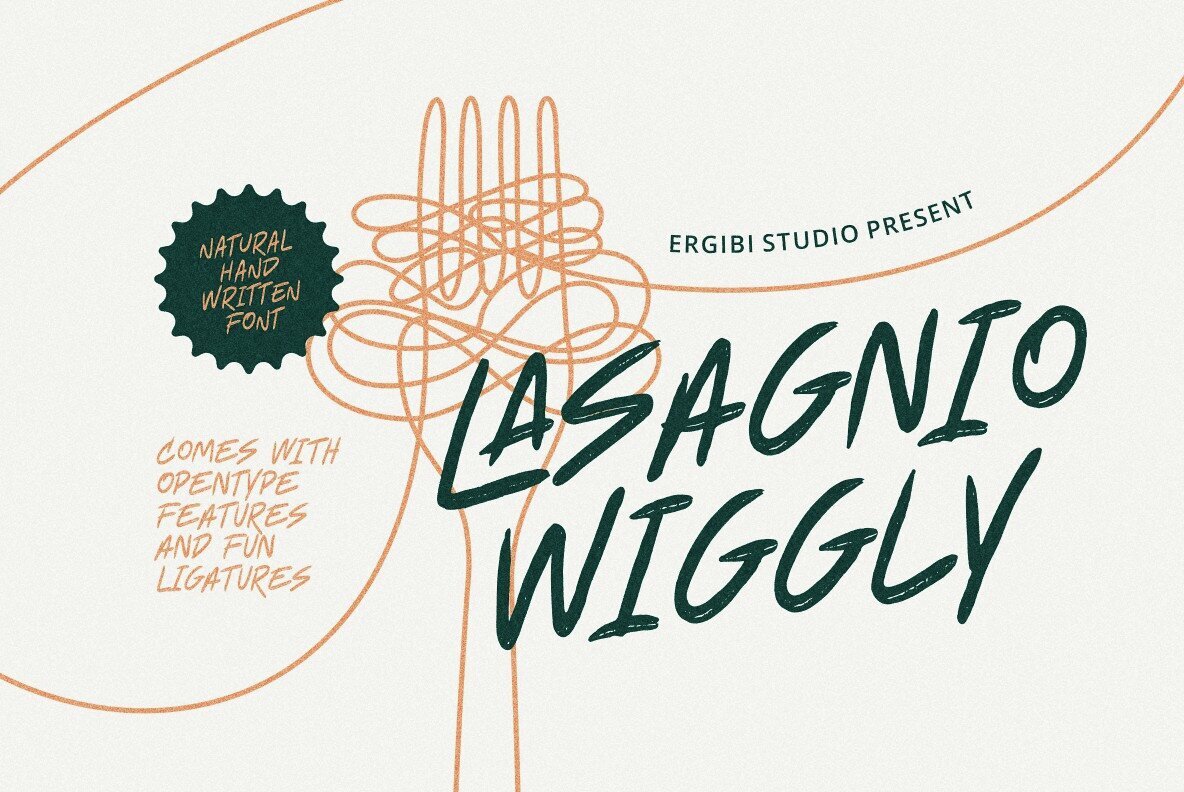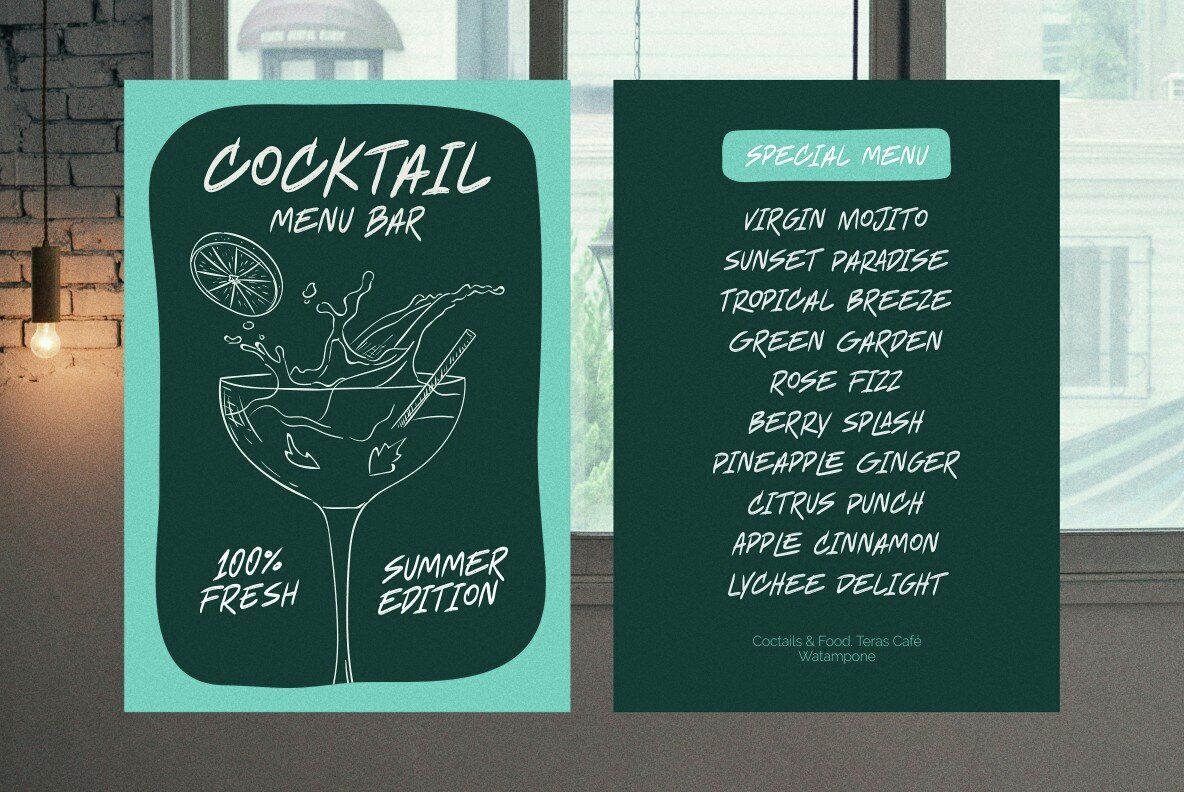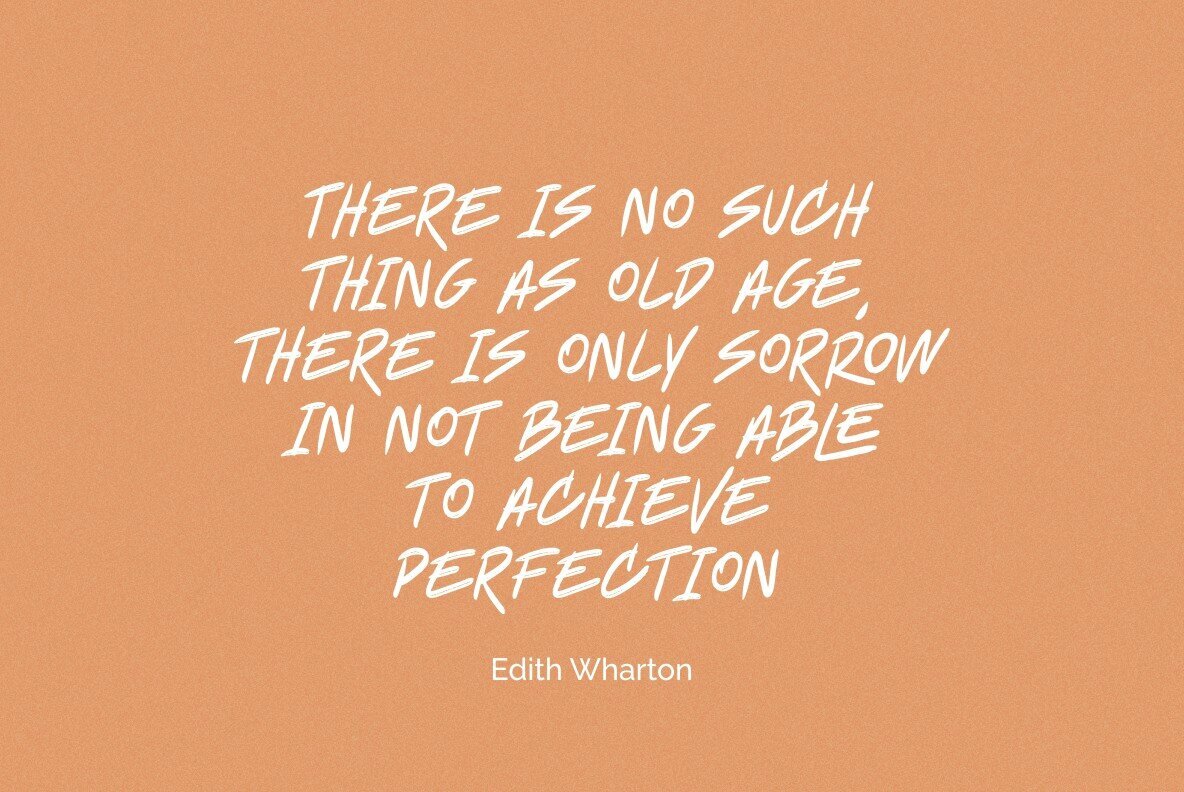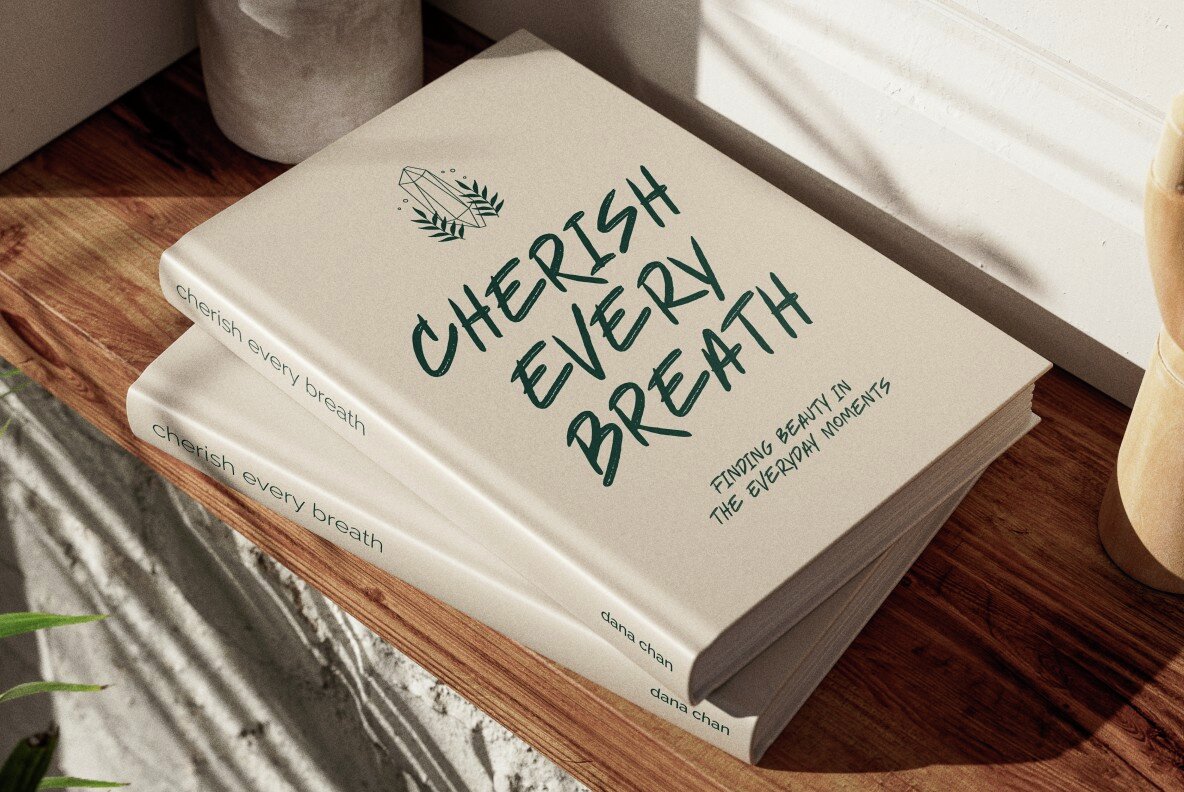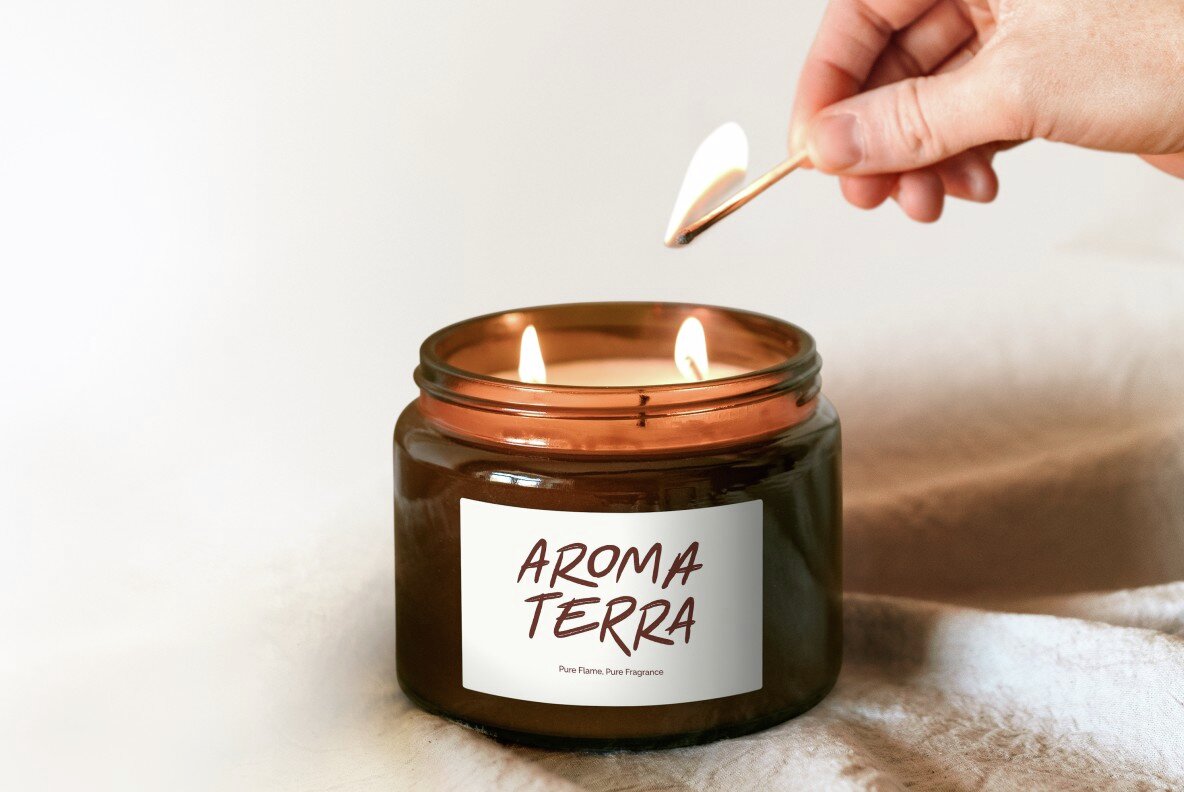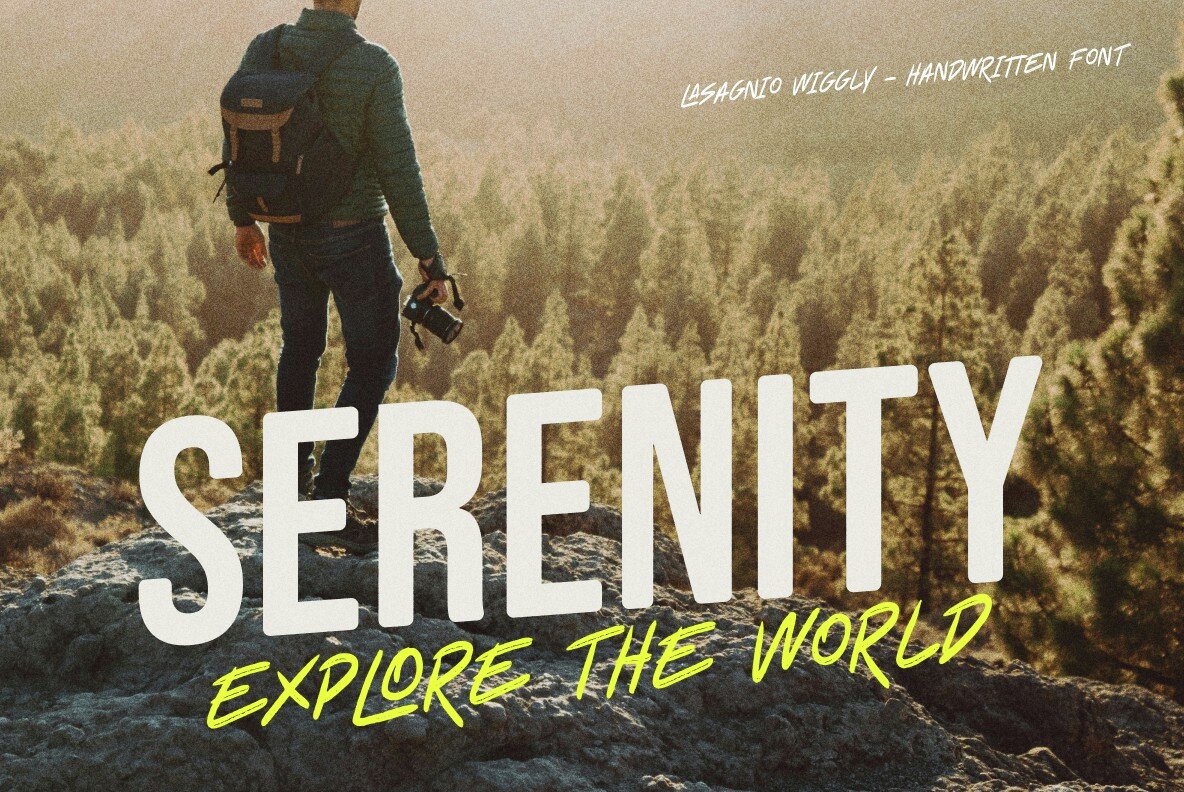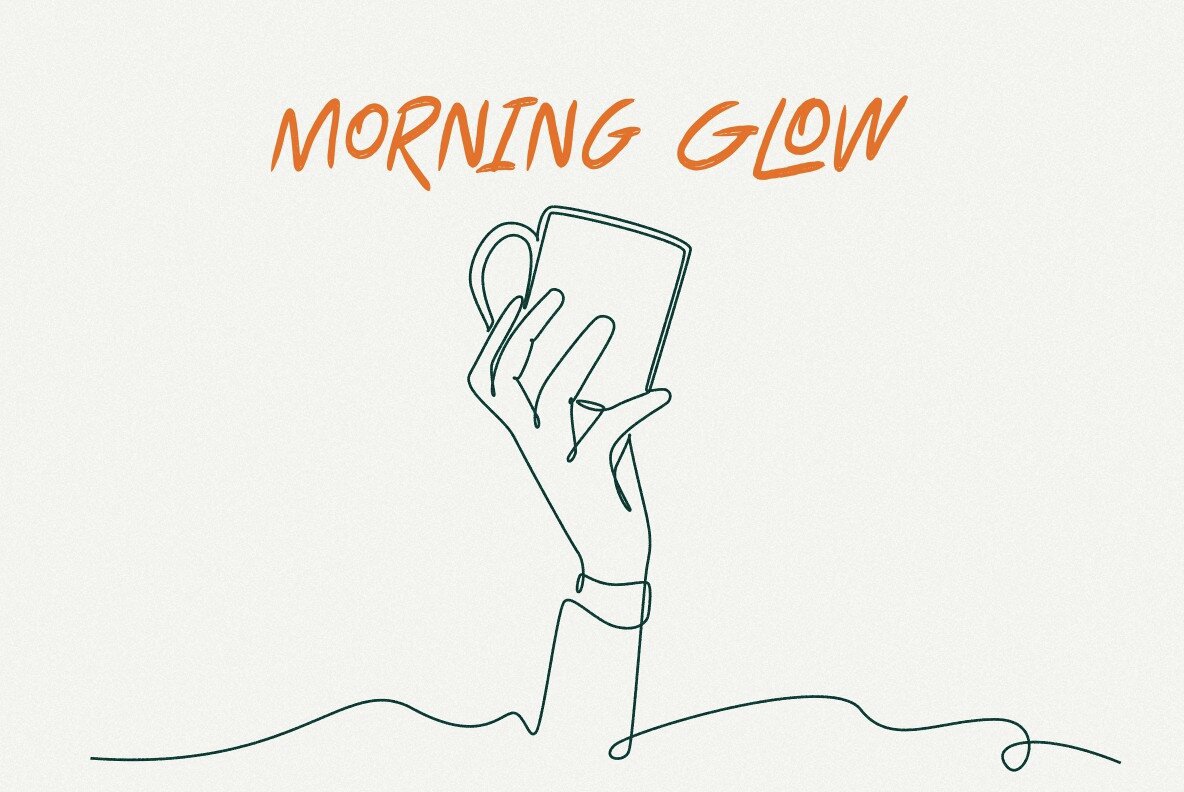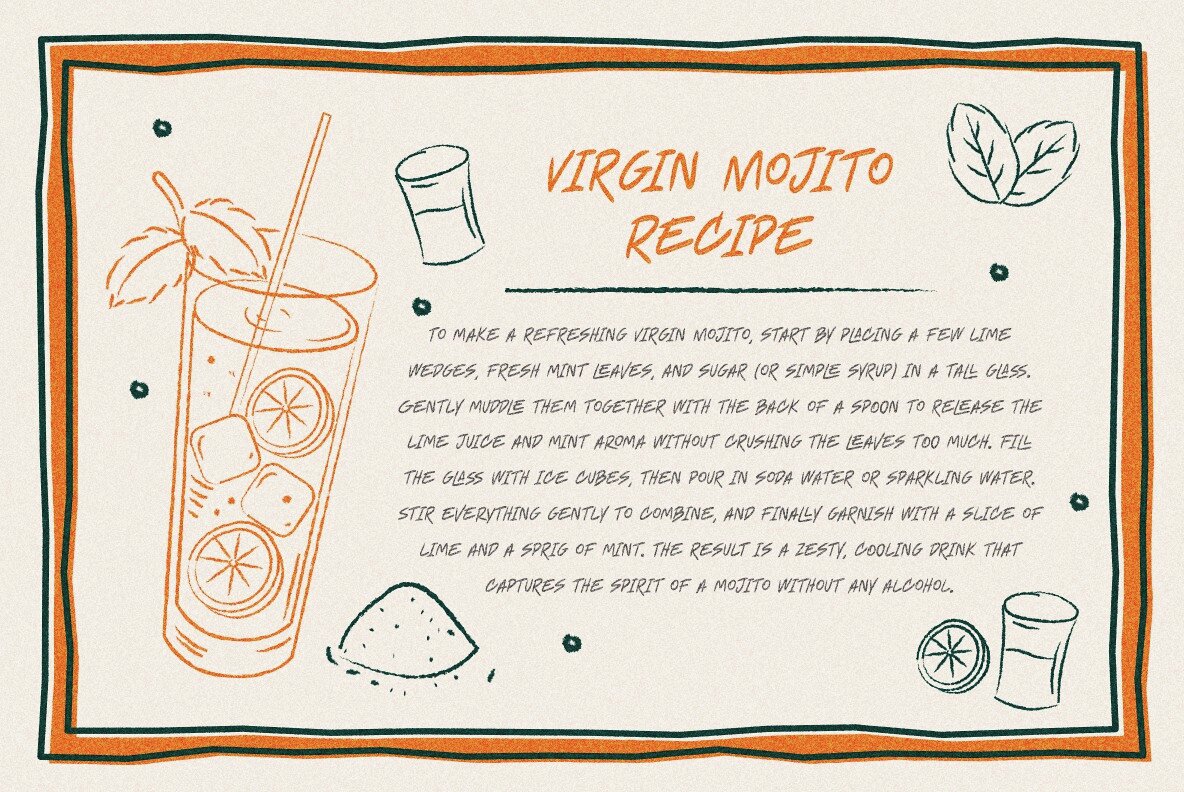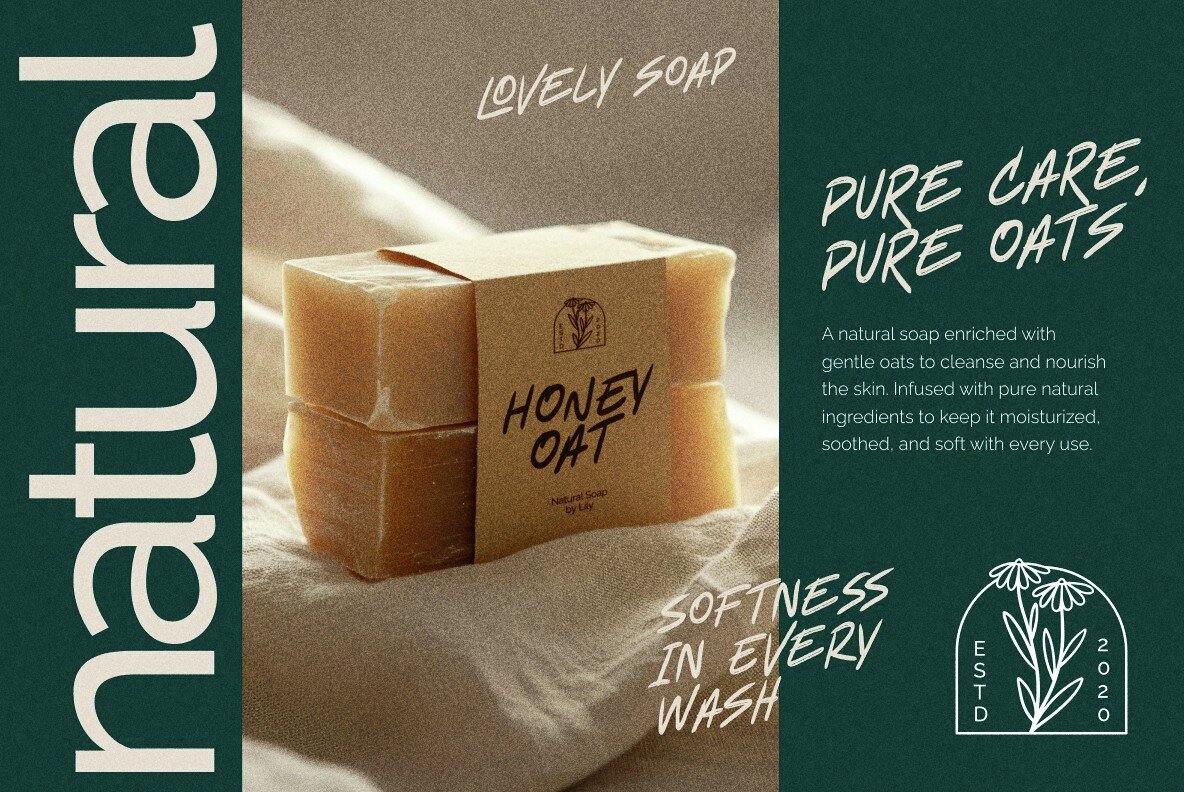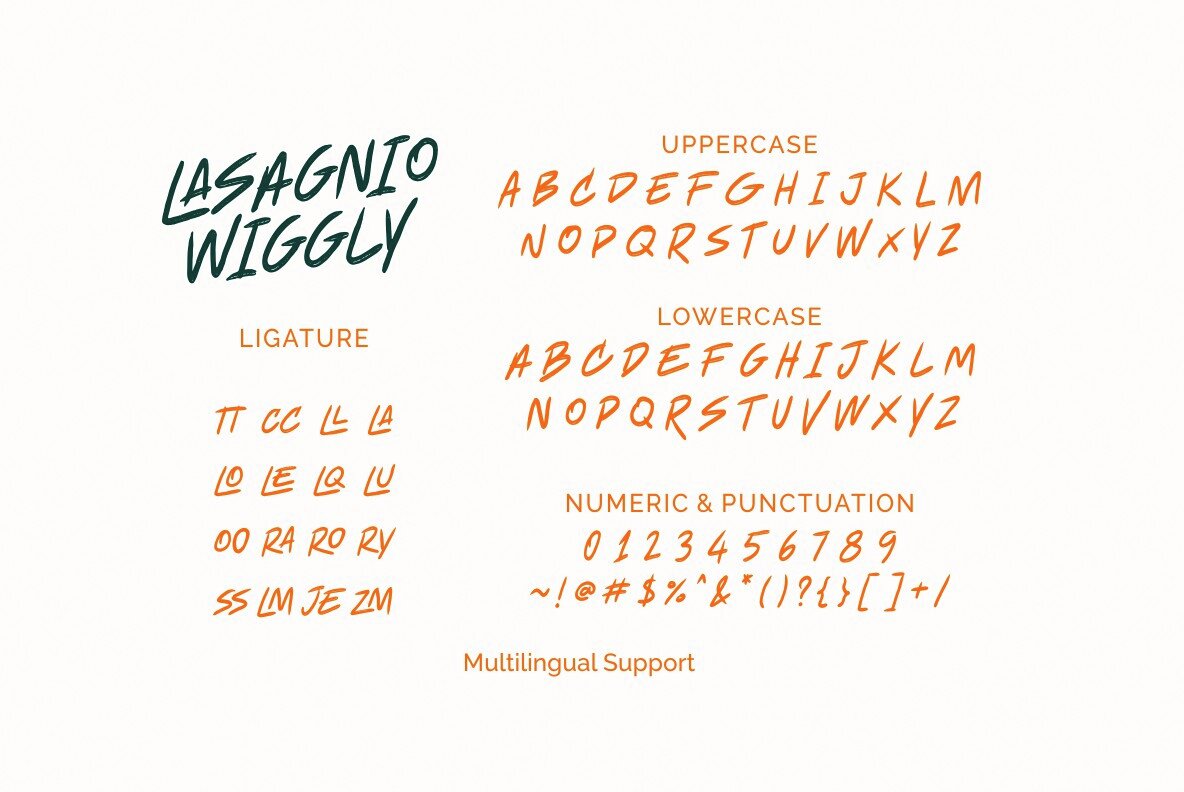
Lasagnio Wiggly Font
Lasagnio Wiggly
Lasagnio Wiggly offers an inviting blend of fun and individuality through its natural handwritten style. Characterized by wiggly and imperfect strokes, this all-caps font channels the charm of casual handwriting. It infuses every word with a sense of humor and approachability. Features:Lasagnio Wiggly: Playful Handwritten All-Caps Font